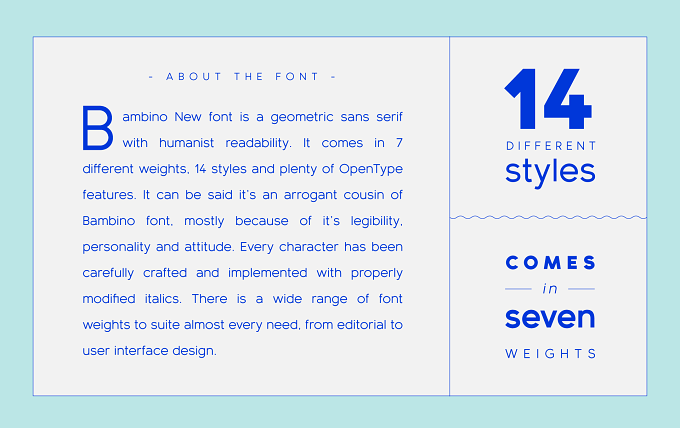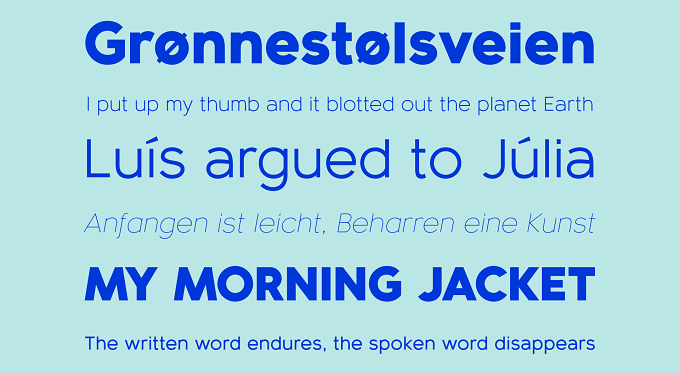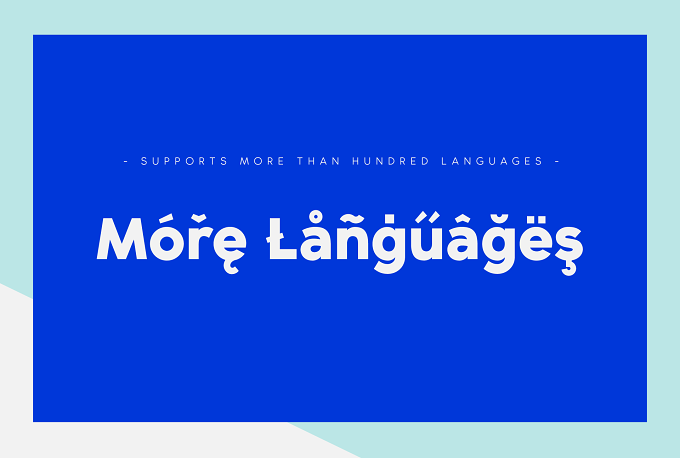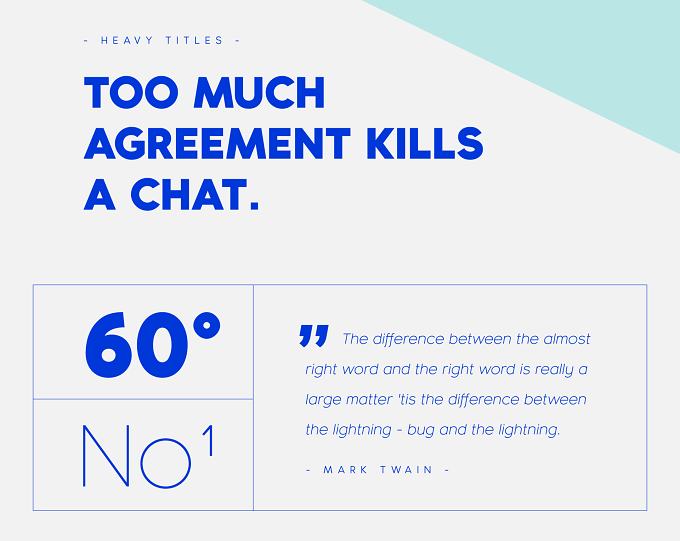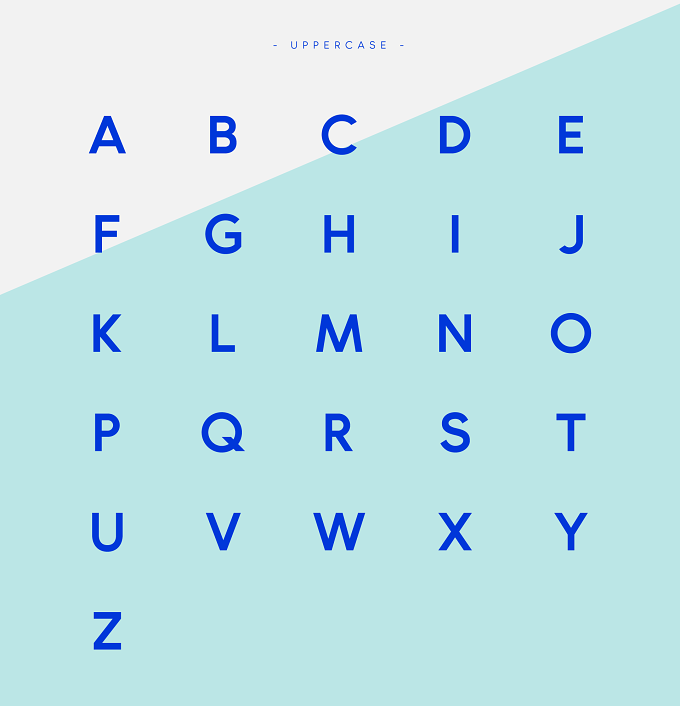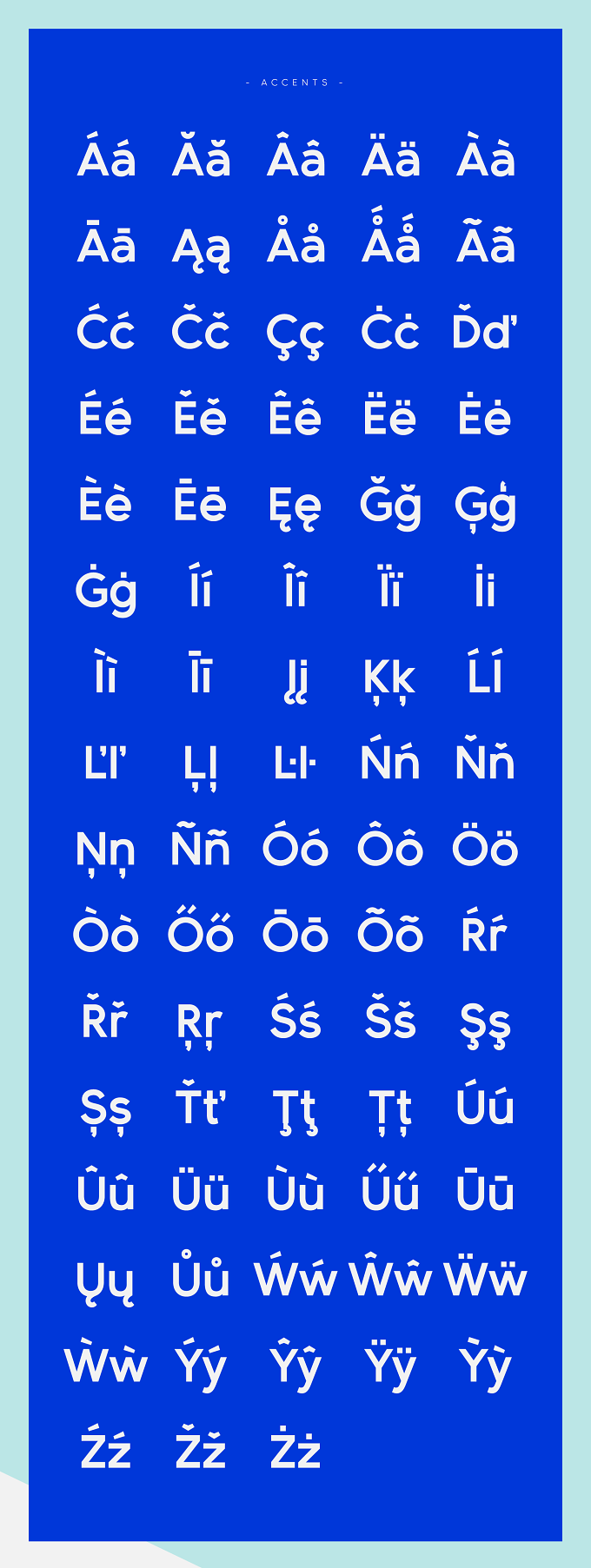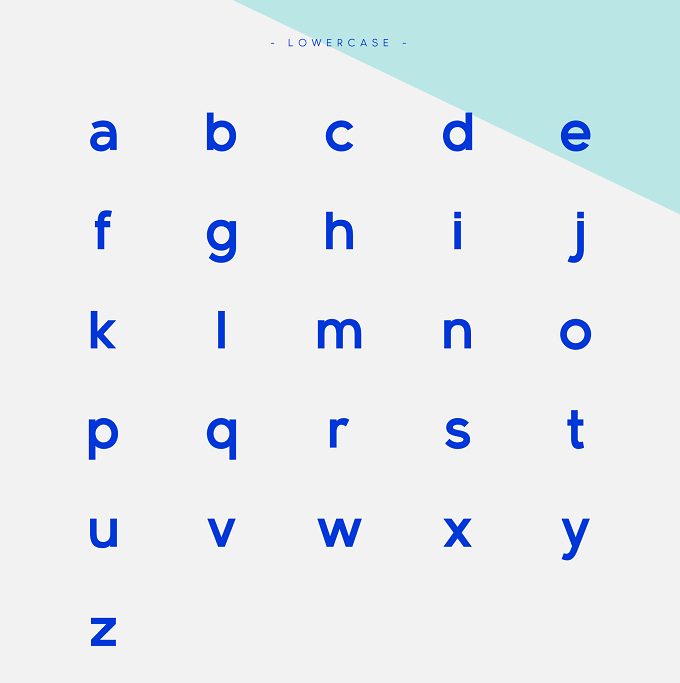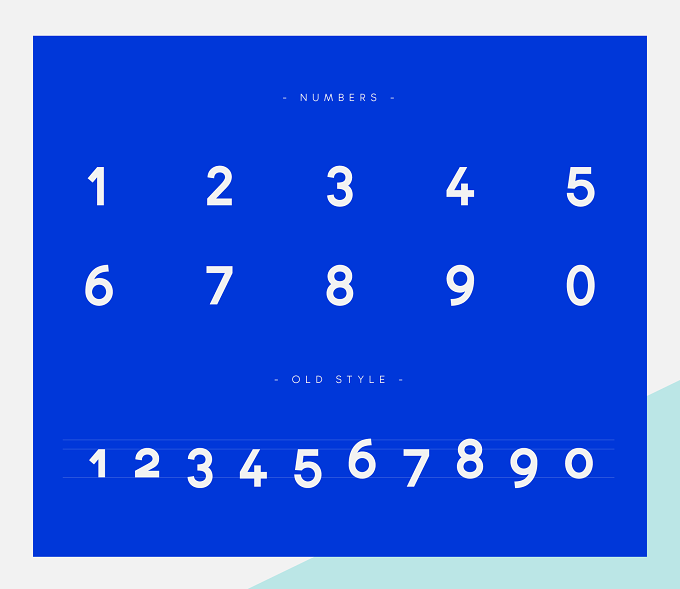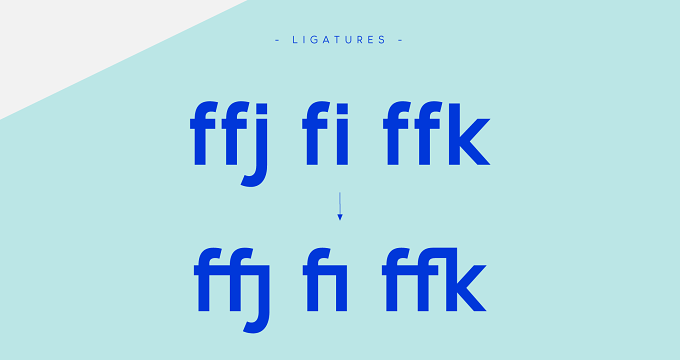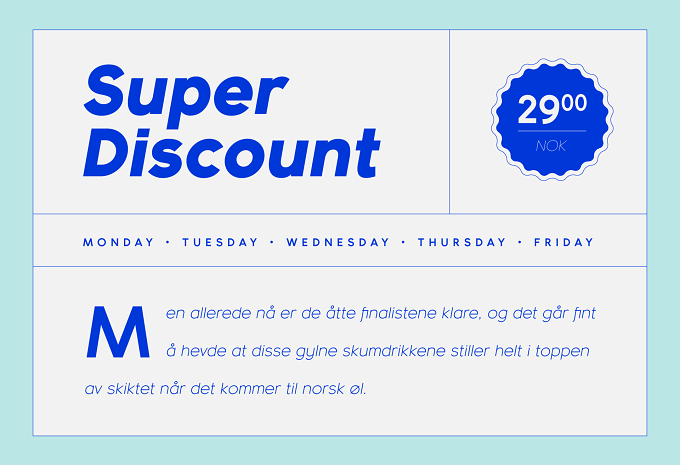
‘Bambino New’ font is a geometric sans serif with humanist readability. It comes in 7 different weights, 14 styles and plenty of OpenType features. It can be said it’s an arrogant cousin of Bambino font, mostly because of it’s legibility, personality and attitude. Each character has been carefully crafted and implemented with properly modified italics.